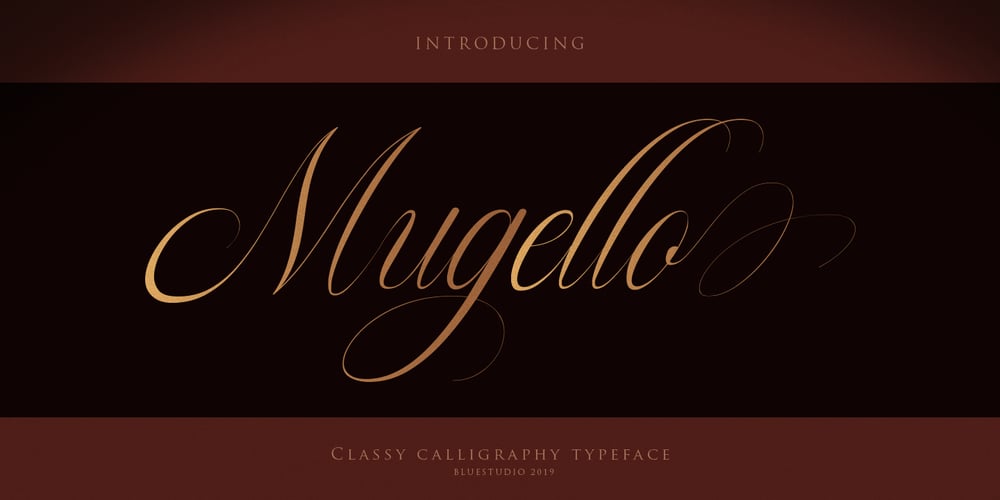
Mugello Font Family was designed by Winarno and published by Bluestudio. Mugello contains 1 styles and family package options. Introducing our newest product Mugello. Mugello is a classy,modern and clean calligraphy font. Mugello is suitable for all your design project needs such as: logo design, branding, covers, posters, magazines, wedding invitations, greeting cards, quotes and more. Includes: – Mugello TTF – Titling – Swash – Stylistic Alternate Set 01, 02, & 03 -Multilingual support – spread your message globally: AÀÁÂÃÄÅCÇDÐEÈÉÌÍÎÏIÌÍÎÏNÑOØÒÓÔÕÖUÙÜÚÛWYÝŸÆßÞþ – Encoded PUA Characters. Fonts are fully accessible without additional design software. Happy designing!